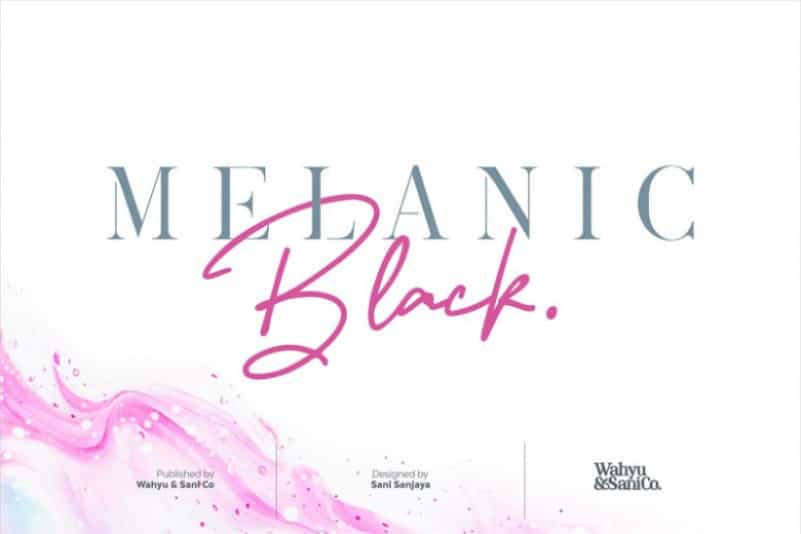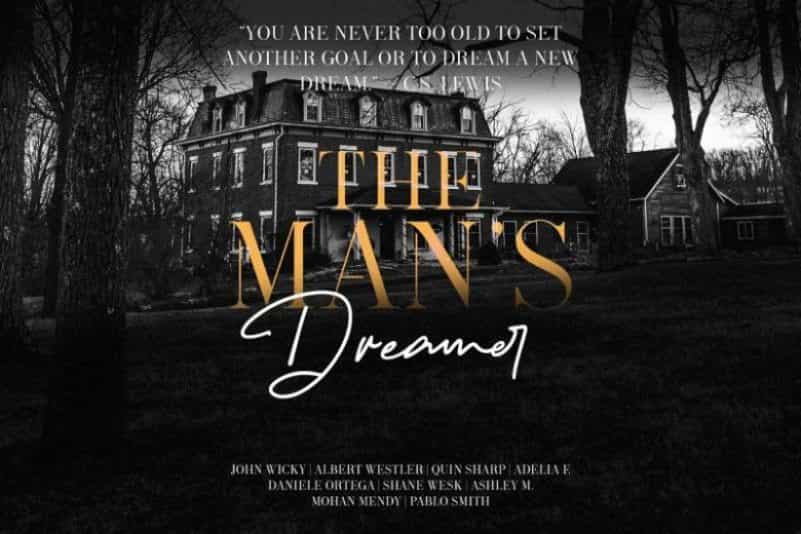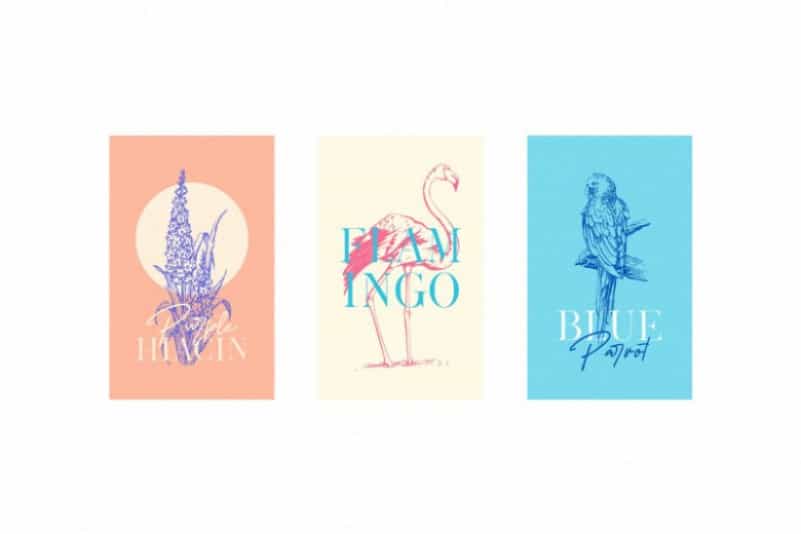
Welcome Melanic Black Script & Serif Font. It is oriented on the true hand signature script, it looks stylish and natural, it is created manually using pen and scanned with great attention to details to provide the handwriting style. When combined with a modern serif font, it gives a feeling of ease while exploring and experimenting with new things. This font can be used for Instagram Quotes, Logotype, Tag lines, and don’t forget to use it in pairing with a modern serif font as well.